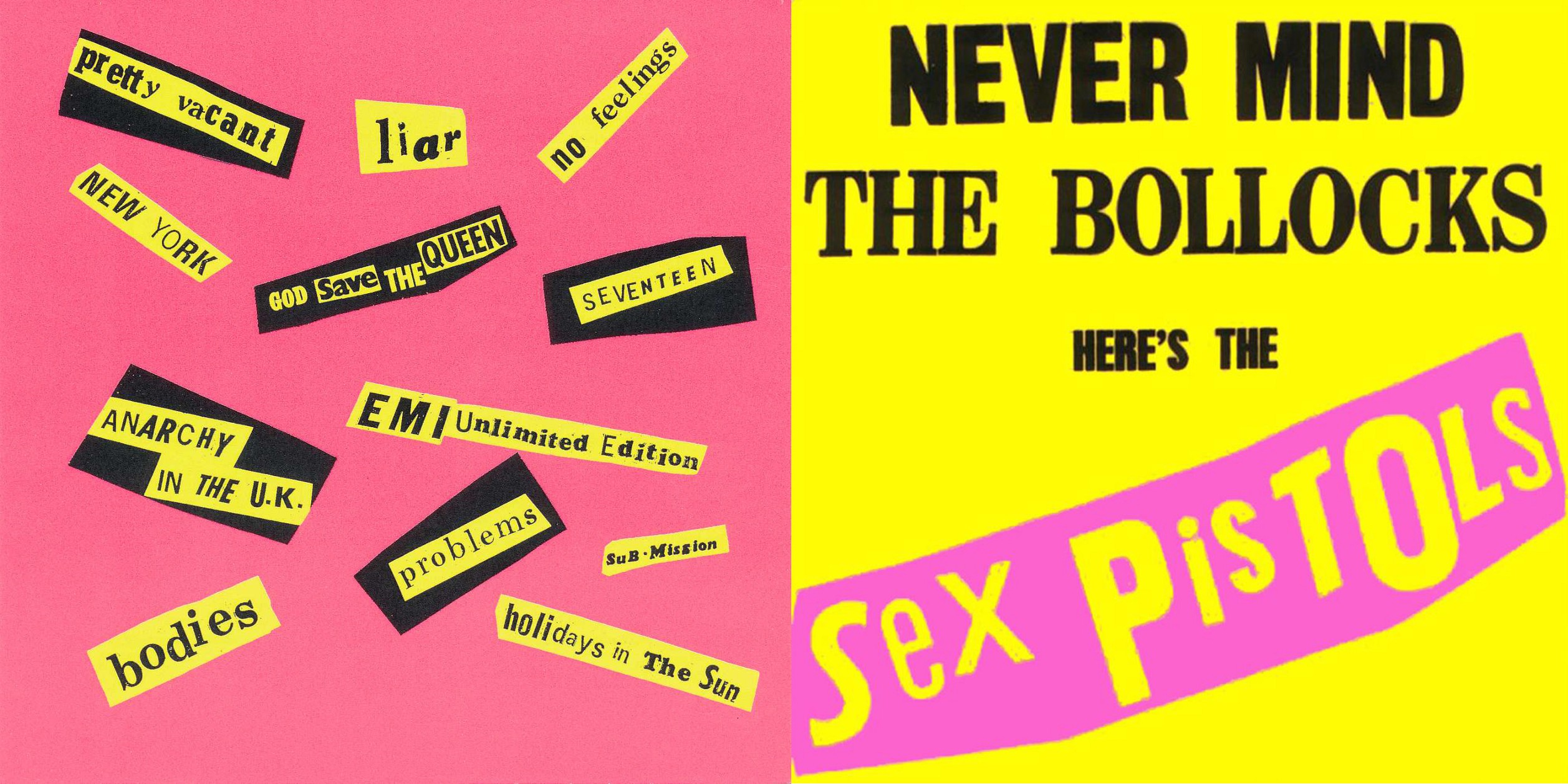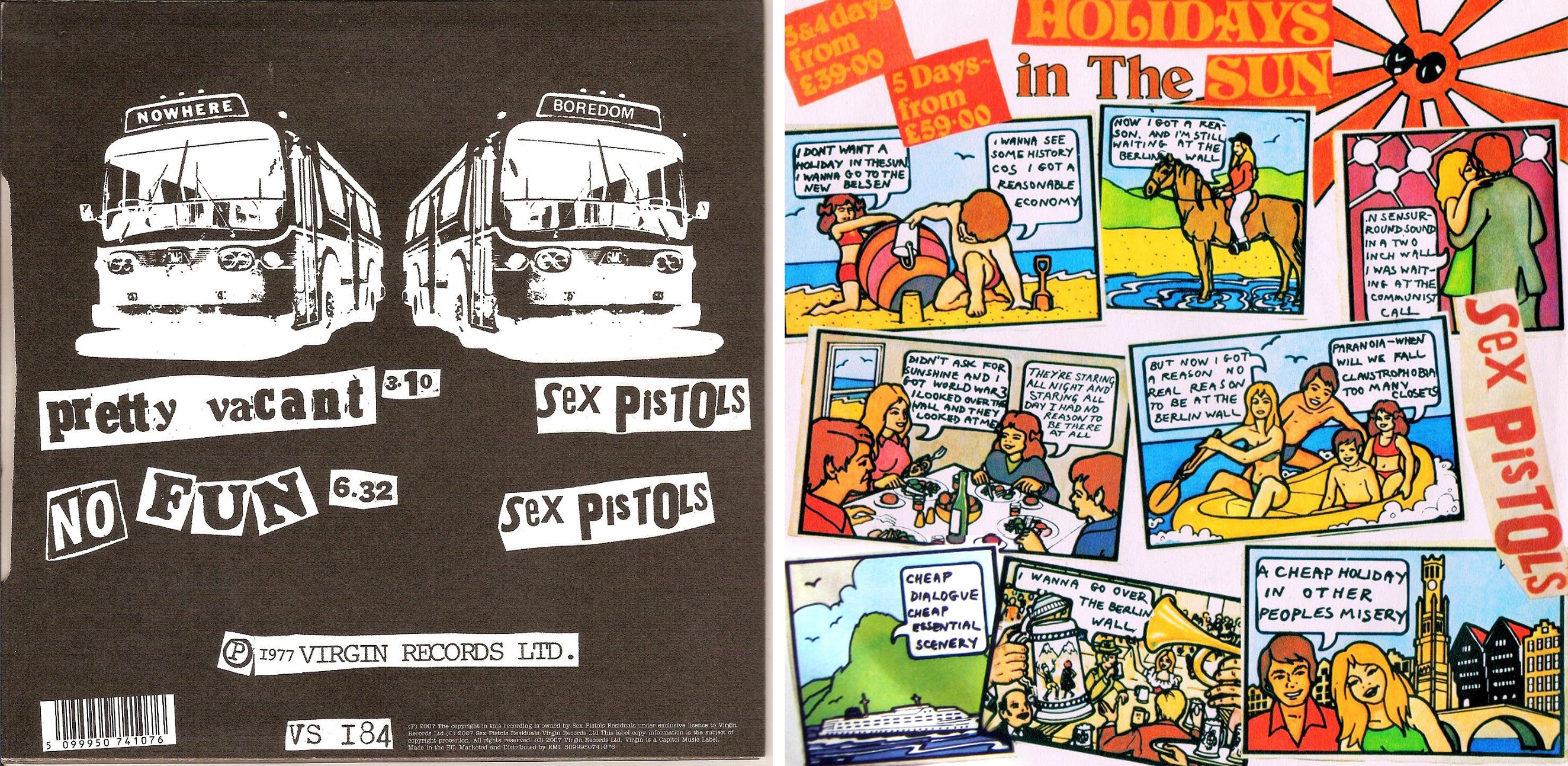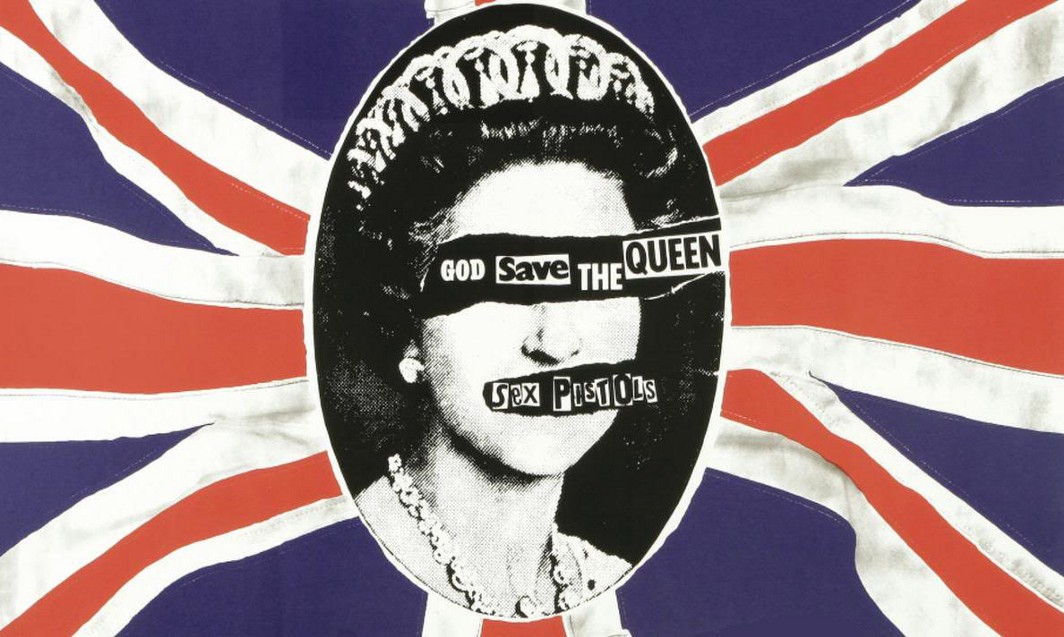
Punk emerged as a reaction to the rigid restrictions of Modernism and its style ripped up the rules of Swiss minimalism and neutral sans serif typography. As traditional attitudes came to be considered outdated, society rebelled against the mainstream and demanded change. It feels like we are at a similar turning point today, both culturally and typographically. Can we look to history for parallels in how graphic design and cultural attitudes are changing today?
Punk first exploded in the 1970s and, at the time, it looked like youthful rebellion. In actuality, it was part of the Postmodernist movement which began as a reaction to the rigid restrictions of Modernism. Its DIY ethos encapsulated the anti-establishment mood of the mid-1970s, a time of political and social turbulence. The former British Empire was dissolving and a new era in British music, fashion and design were beginning.
Taking the stage to articulate the feelings of a dissatisfied generation calling for change were the Sex Pistols, who played their first gig in 1975 at St Martins College of Art. Their outrageous behaviour and contempt for established conventions announced the beginning of Punk. The DIY ethos and uncontrolled, homemade style was revolutionary at the time and launched a new era in British music, fashion and design.
The band’s style of music was well represented by art student and anarchist Jamie Reid who had developed his unique collaged ‘ransom note’ typography whilst art directing a radical political magazine. In the ’70s graphic designers needed to commission a typesetter to create the type and they wouldn’t see what it looked like until it came back as finished copy printed out on a sheet. Instead, Reid cut letters out of newspapers and magazines, collaging them together to be photographed. By doing this he could see what he was creating as he went along, trying out different font styles and sizes and seeing the results instantly. Treating type as if it was a photograph also freed him from the restrictions of typesetting within a structured grid. Reid designed the band’s logo and many of their record covers.
Above ‘Typesetting and paste-up, 1970 style’, by Wayne Overbeck, click on the title to see the full typesetting process.
At the time Reid’s DIY style was considered shocking and uncontrolled but the influence on design has been far-reaching and subsequently widely emulated.
Vinyl records were mass produced, disposable items (although treasured by their owners), a 45″ Sex Pistols single cost about 70p. We didn’t realise at the time that they would go on to become such significant pieces of work, charting the start of a major art and design movement which would change the face of Britain.
Barney Bubbles (Colin Fulcher) was also subverting the Modernist style in his work as the Stiff Records designer where he created record sleeves for Elvis Costello, Ian Dury & the Blockheads and the Damned.
Elsewhere Postmodernism was taking the form of New Wave Design which was championed in Switzerland by Wolfgang Weingart and in Holland by Gert Dumbar. The DIY design ethos gained new impetus with the arrival of the Apple Mac in the 1980s which gave designers direct access to typefaces and started a whole new debate about ‘ugly’ design.
Below: Modernism vs Postmodernism.
Trends today
The clean structure of Modernist design from the 1950s and 60s is a style that returned and has become pretty ubiquitous in the last decade, especially in the world of typography. We’re now reaching a point where the dominance of minimalist or “app style” sans serif type is starting to wane and a new aesthetic is emerging. Take a look around and there is plenty of evidence to suggest that history is repeating itself. 1970s curvaceous type with swashes and Herb Lubalin inspired ligatures are becoming increasingly popular from Instagram to branding. And a DIY punk attitude is emerging from the ground up as design tools are becoming ever more democratised; from slapping ‘instant’ fonts onto Instagram stories and Snapchat, to hacking your Twitter and Insta feeds with custom fonts made possible by emoji technology.
2018 T2 tea packaging, 2019 book cover, both using 1970s style typography.